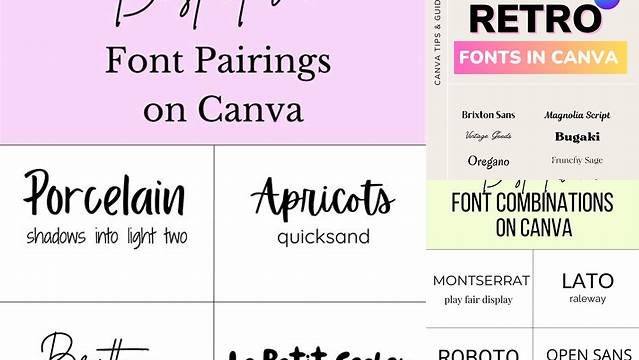
Good Free Font Combinations: The Ultimate Guide
Hey everyone! Ever found yourself staring blankly at a design project, completely stumped on which fonts to pair together? You're not alone! Choosing the right font combinations can feel like cracking a secret code, but it's a crucial part of creating visually appealing and effective designs. Fonts can make or break a design, influencing readability, conveying personality, and establishing visual hierarchy. That's why I'm here to spill the beans on creating killer font pairings, especially when you're working with the treasure trove of free fonts available online. We'll dive into the principles behind font pairing, explore some fantastic free font combinations, and give you the tools to confidently choose fonts that make your designs shine. So, buckle up and let's become font pairing pros!
Why Font Combinations Matter
Let's get real, font combinations are more than just a design afterthought. They're the foundation of visual communication. Think of fonts as the voice of your design – they set the tone, convey the message, and engage your audience. A well-chosen font pairing creates harmony and enhances readability, ensuring your message gets across loud and clear. Imagine reading a website where the fonts are clashing – it's jarring, distracting, and makes you want to click away, right? On the flip side, a harmonious font combination feels effortless, inviting the reader to engage with the content.
Consider this: Fonts have personalities. Some are serious and professional, others are playful and whimsical, and some are elegant and sophisticated. Pairing fonts with contrasting personalities can create visual interest and highlight key elements, while using fonts that are too similar can result in a bland and uninspired design. The goal is to create a visual hierarchy, guiding the reader's eye through the content and emphasizing important information. A strong hierarchy typically involves using a bolder, more attention-grabbing font for headings and a cleaner, more readable font for body text. This contrast helps to break up the text, making it easier to digest and understand. Furthermore, effective font combinations can strengthen your brand identity. Consistent use of specific fonts across your branding materials – website, social media, marketing collateral – helps to establish a recognizable visual identity and reinforces your brand's personality. Think about some of the biggest brands – they all have signature fonts that instantly evoke their brand image. Free fonts offer a fantastic opportunity to experiment and create unique pairings without breaking the bank. The key is to understand the basic principles of font pairing and to have a good eye for what works visually.
Understanding the Basics of Font Pairing
Alright, guys, let's break down the fundamentals of font pairing. It's not just about throwing two random fonts together and hoping for the best. There's actually some logic and artistry involved! At its core, font pairing is about creating contrast and visual harmony. You want fonts that complement each other, not compete. Think of it like a good friendship – the best pairings are those where each font brings out the best in the other.
One of the golden rules of font pairing is to choose fonts from different font families. Font families are groups of fonts that share similar design characteristics, such as serif, sans-serif, script, and display fonts. Serif fonts are characterized by the small decorative strokes (serifs) at the ends of the letters, giving them a classic and traditional feel. Think Times New Roman or Georgia. Sans-serif fonts, on the other hand, lack these serifs, resulting in a cleaner and more modern appearance. Arial and Helvetica are classic examples. Script fonts mimic handwriting, adding a touch of elegance and personality. And display fonts are the wildcards – bold, quirky, and designed to grab attention. A classic approach is to pair a serif font with a sans-serif font. This creates a clear visual distinction between headings and body text, enhancing readability. For example, you might pair a serif font like Playfair Display for headings with a sans-serif font like Montserrat for body text. The contrast in style makes the design more dynamic and engaging. Another key consideration is the mood and tone you want to convey. Fonts have personalities, as we discussed earlier, and the font combinations you choose should reflect the overall message of your design. A playful design might benefit from a script font paired with a bold sans-serif, while a professional design might call for a classic serif and sans-serif combination. Don't be afraid to experiment, but always keep your target audience and the purpose of your design in mind. You also need to consider the x-height of fonts. The x-height refers to the height of the lowercase letters in a font. Fonts with similar x-heights tend to pair well together, as they create a more consistent visual rhythm. And, of course, readability is paramount. Make sure your chosen font combinations are legible at different sizes and on different devices. There's no point in creating a stunning design if no one can read the text!
Fantastic Free Font Combinations
Okay, let's get to the good stuff! Here are some killer free font combinations that you can use in your next design project. These pairings are tried and tested, offering a blend of classic styles and modern flair. Get ready to bookmark these!
1. Montserrat & Raleway
This is a super popular and versatile pairing. Montserrat is a clean and modern sans-serif font that works beautifully for headings and subheadings. Raleway, another sans-serif, has a slightly lighter weight and elegant feel, making it perfect for body text. Together, they create a contemporary and professional look that's easy on the eyes. Montserrat's bold, geometric forms provide a strong visual presence, while Raleway's delicate lines ensure readability in longer paragraphs. This combination is ideal for websites, presentations, and marketing materials where you want to convey a sense of sophistication and clarity. The contrast in weight between the two fonts creates a subtle hierarchy, guiding the reader's eye through the content. Montserrat's versatility extends to various design styles, from minimalist to corporate, while Raleway's elegance adds a touch of refinement. This pairing is a safe bet for any project requiring a clean and modern aesthetic. The visual harmony between Montserrat and Raleway makes them a go-to choice for designers seeking a polished and professional look.
2. Playfair Display & Open Sans
If you're after a touch of elegance and sophistication, this is your dream team. Playfair Display is a classic serif font with beautiful curves and a timeless feel. It's perfect for headings and titles, adding a touch of class to your design. Open Sans, a clean and highly readable sans-serif, is the ideal companion for body text. It provides a clean contrast to Playfair Display's ornate style, ensuring readability without sacrificing elegance. This combination exudes sophistication and professionalism, making it perfect for websites, magazines, and branding materials. The contrasting styles of Playfair Display and Open Sans create a visual hierarchy, with the serif font commanding attention in headings while the sans-serif font ensures readability in body text. Playfair Display's classic elegance lends a touch of timelessness, while Open Sans's modern simplicity prevents the design from feeling dated. This pairing is particularly effective for projects where a sense of refinement and credibility is desired.
3. Oswald & Lato
For a modern and bold look, try pairing Oswald with Lato. Oswald is a condensed sans-serif font with a strong and impactful presence, perfect for headlines and call-to-actions. Lato is a clean and friendly sans-serif that works well for body text. The contrast between the condensed and regular widths creates visual interest and ensures readability. This combination is ideal for websites, posters, and social media graphics where you want to make a statement. Oswald's strong, geometric forms command attention, while Lato's friendly and approachable character makes the text easy to read. This pairing is well-suited for designs that need to convey a sense of confidence and energy. The condensed nature of Oswald allows for efficient use of space, making it a great choice for headlines and titles that need to be concise and impactful. Lato's versatility ensures that the body text remains legible and inviting, complementing Oswald's boldness without overpowering it.
4. Roboto & Roboto Slab
Why not keep it in the family? Roboto and Roboto Slab are part of the same font family, making them a natural pairing. Roboto is a modern sans-serif with a geometric feel, while Roboto Slab is its serif counterpart. They share a similar structure and personality, creating a cohesive and harmonious look. This combination is incredibly versatile and works well for a wide range of projects, from websites to mobile apps to print materials. Roboto's clean lines and open forms make it highly readable, while Roboto Slab's serifs add a touch of traditional elegance. This pairing is a safe bet for projects where clarity and consistency are paramount. The Roboto family's extensive range of weights and styles allows for further customization, ensuring that the design remains visually engaging. This combination is particularly effective for projects that require a modern and professional aesthetic. The visual consistency between Roboto and Roboto Slab creates a sense of unity and harmony, making it a reliable choice for a wide range of applications.
Guys, mastering font combinations is a game-changer for your designs. It elevates your work from good to amazing. By understanding the basics of font pairing and exploring the world of free fonts, you can create stunning visuals that capture attention and convey your message effectively. Remember, it's all about contrast, harmony, and readability. Don't be afraid to experiment, have fun, and let your creativity flow! With a little practice, you'll be a font pairing pro in no time. So go out there and start creating some killer designs!